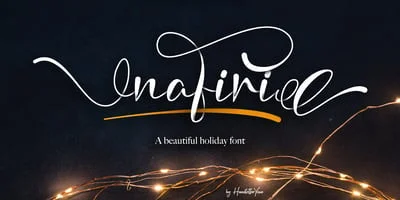
Nafiri Font
Nafiri Font is ideal for exotic design projects including world music album covers, international festival promotions, cultural exchange programs, ethnic restaurant branding, travel agency materials, global art exhibitions, multicultural event signage, and diverse heritage celebrations. This distinctive typeface works perfectly for international organizations, cultural centers, world cuisine establishments, global fashion brands, and projects that celebrate cross-cultural connections and international diversity.
What makes Nafiri Font exciting is its captivating multicultural character that perfectly embodies the essence of global heritage and international sophistication. The font features unique letterforms with exotic flourishes that reflect the rich tapestry of world cultures and traditional artistic expressions. Its cosmopolitan design elements capture the spirit of cultural fusion and global connectivity, making it perfect for projects that need to convey diversity, worldliness, and appreciation for international traditions. The carefully crafted ornamental details create an atmosphere of cultural richness and global awareness.
Nafiri Font comes in multiple family variations including traditional, modern, ornate, and simplified styles. Each weight maintains the distinctive multicultural character while offering different levels of cultural intensity and international presence. The font family includes ethnic alternates, global ligatures, and heritage variations that provide designers with comprehensive options for creating truly worldly and culturally resonant typographic compositions that celebrate human diversity.
Whether you're designing international branding, creating multicultural marketing materials, or developing global promotional graphics, Nafiri Font provides the perfect typographic passport for projects that celebrate cultural diversity and international excellence. This remarkable typeface transforms standard text into compelling expressions of global heritage and multicultural understanding. Download this extraordinary font today and connect your design projects to the world with typography that speaks the universal language of cultural appreciation and international sophistication.